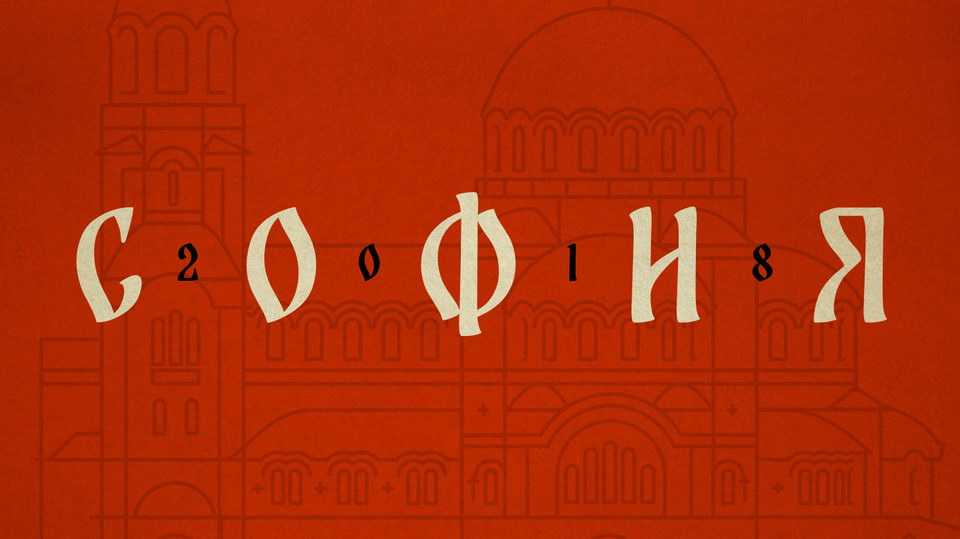
Download Balkara font, a contemporary graphic interpretation of handwritten forms derived from medieval manuscripts and written samples of church mural.
Designer: Svetlin Balezdrov